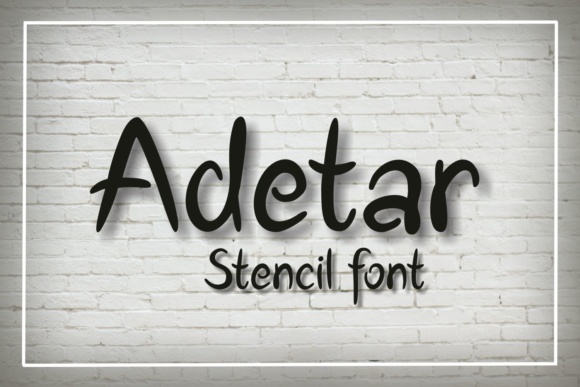
Introducing the Adetar Stencil Font, a mesmerizing addition to your font collection that will leave you spellbound! Created by the talented Eva Barabasne Olasz, this font is designed with meticulous attention to detail, making it a perfect choice for all your creative endeavors.
Unleash your creativity with this unique script font that stands out from the crowd. The Adetar Stencil Font is unlike any other, with its distinct lack of closed loops on the characters. This bold and daring design adds a touch of edginess to your projects, setting you apart from the rest.
Looking to make a lasting impression? Look no further! The Adetar Stencil Font is a showstopper when it comes to logos. Its captivating and eye-catching style instantly grabs attention and leaves a lasting impact on anyone who encounters it. Make your brand unforgettable with this font that exudes confidence and professionalism.
Packaging is an art in itself, and the Adetar Stencil Font is here to elevate your packaging game. Transform ordinary packaging into extraordinary works of art with this font's unique charm. Its sleek and modern aesthetic adds a touch of sophistication, making your product stand out on the shelves and enticing customers to pick it up.
But that's not all! The Adetar Stencil Font is incredibly versatile, making it a must-have for any designer. From posters to social media graphics, from websites to invitations, this font effortlessly adapts to any project, breathing life into your designs and leaving a lasting impression on your audience.